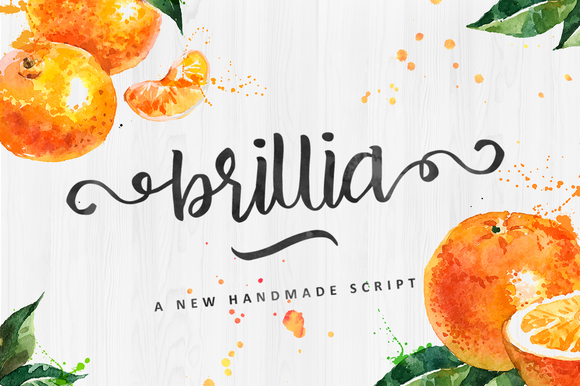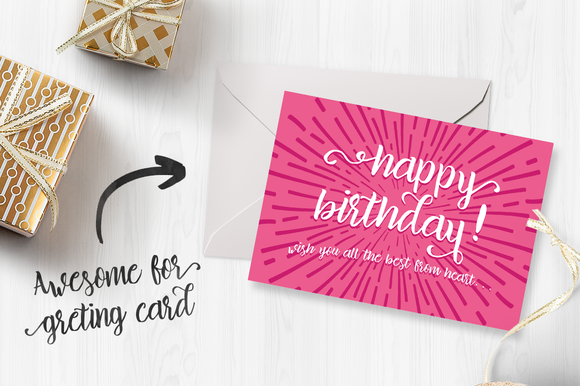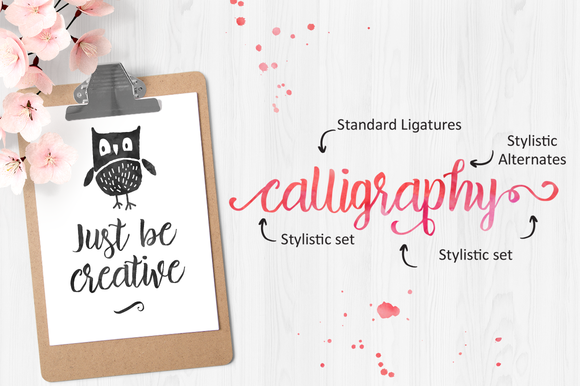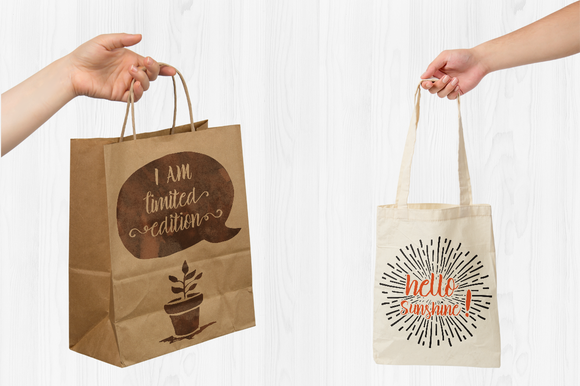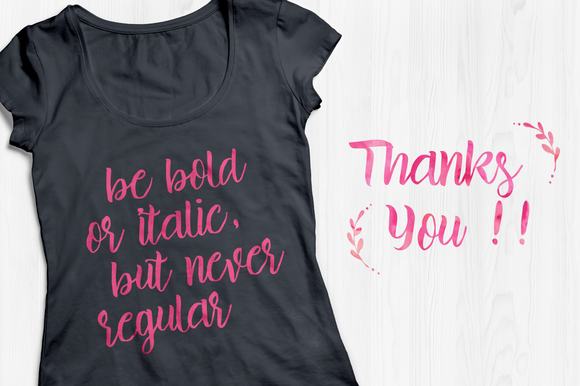
HomeScript FontsBrillia Script Font Script Fonts Brillia Script Font FacebookXPinterestWhatsApp Brillia Script Font Poster 2 Brillia Script Font Poster 3 Brillia Script Font Poster 4 Brillia Script Font Poster 5 About Brillia Script Font Brillia Script is a beautiful handmade script typeface with a natural look. DOWNLOAD NOW People also explored Cloudhie Font Paper Lanterns Ageritta Font Colored Pencils Font Bonita Font Bitter Tea Font Bostwy Font Santaclause Font Sallythone Font 330 0 TagsBrillia Script Font Previous articleDeHangster FontNext articleBrightside Font LEAVE A REPLY Cancel reply Comment: Please enter your comment! Name:* Please enter your name here Email:* You have entered an incorrect email address! Please enter your email address here Website: Save my name, email, and website in this browser for the next time I comment. Personal Use Free Fibon Personal Use Free Read more about this font Gardening Personal Use Free Read more about this font Child Witch Personal Use Free Read more about this font Ontel Personal Use Free Read more about this font BLOG Elegant Wedding Invitation Fonts – Handwritten & Script Fonts Elegant Wedding Invitation Fonts Your wedding day is one of the most important moments of your life, and every detail matters—including your invitation design. Our... The 10 Best Handwriting Fonts to Add Personality to Your Designs Modern Sans-Serif Fonts That Brands Love in 2025 5 Fonts That Will Dominate Design Trends in 2026